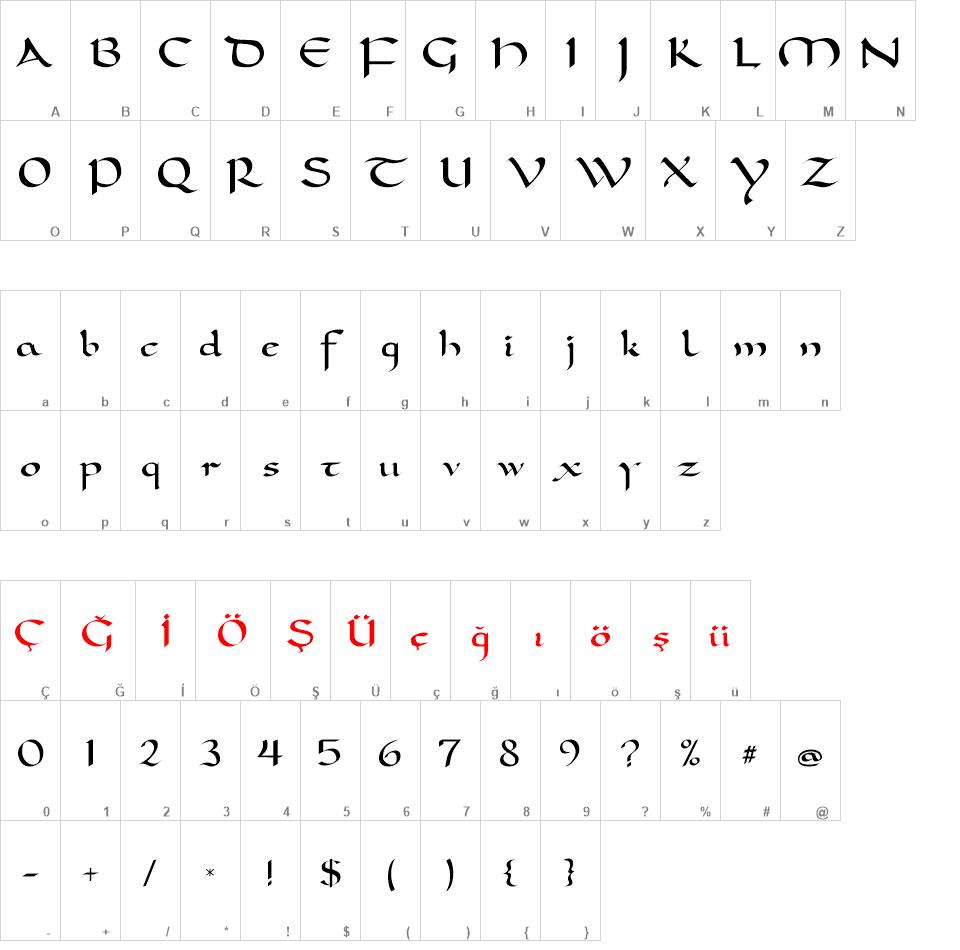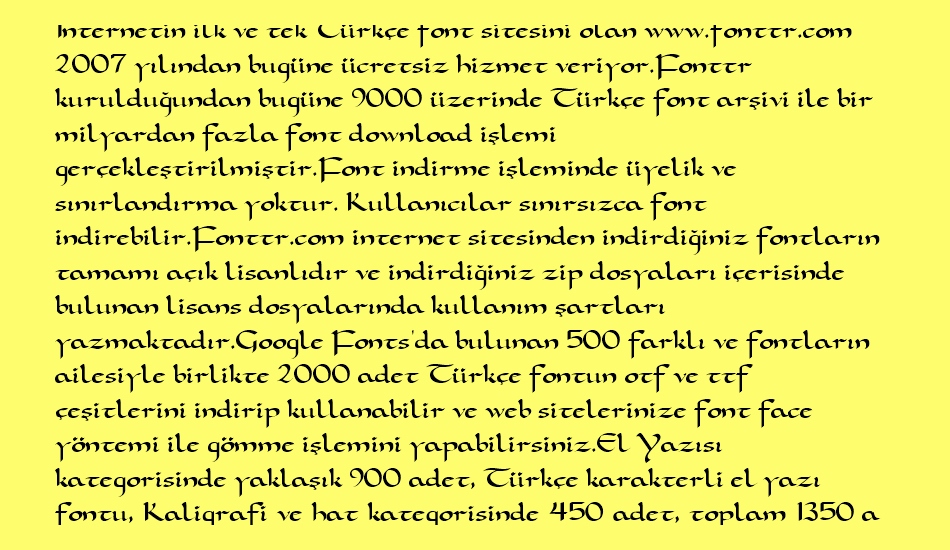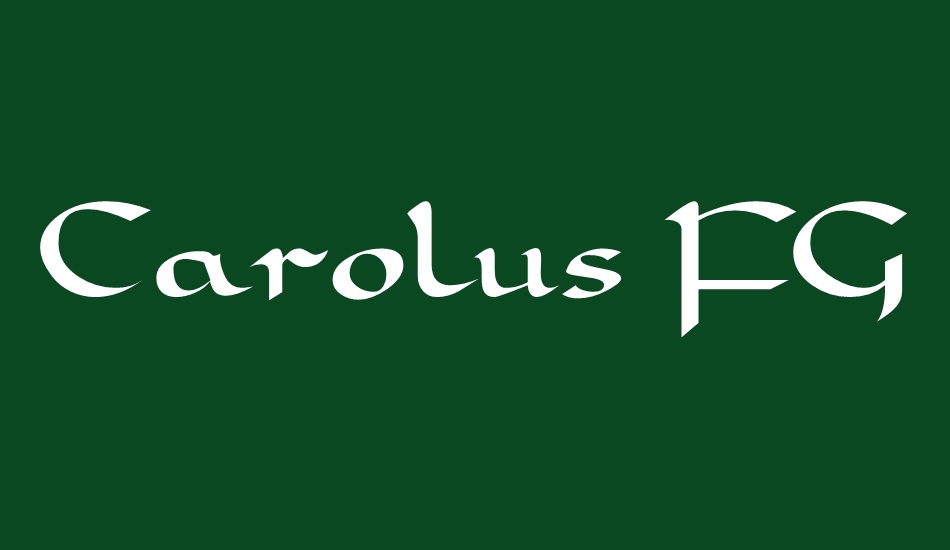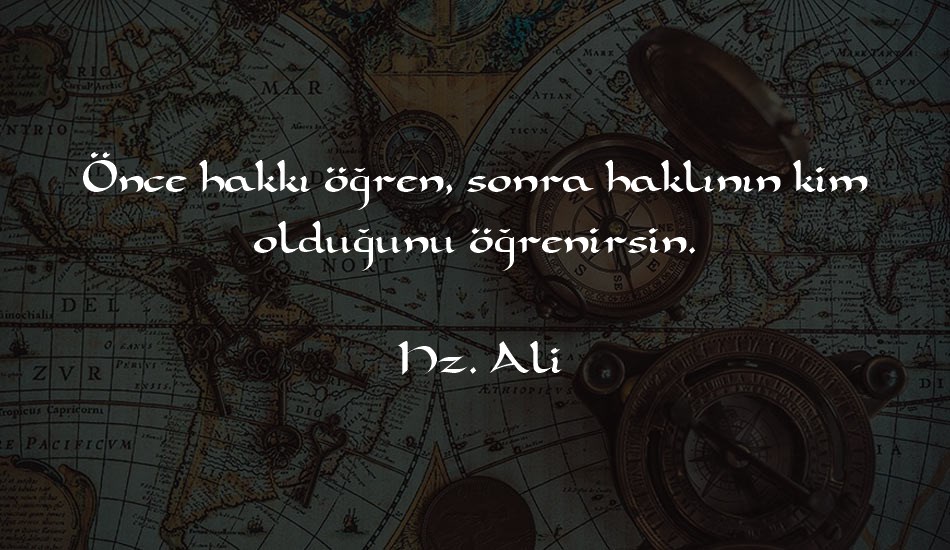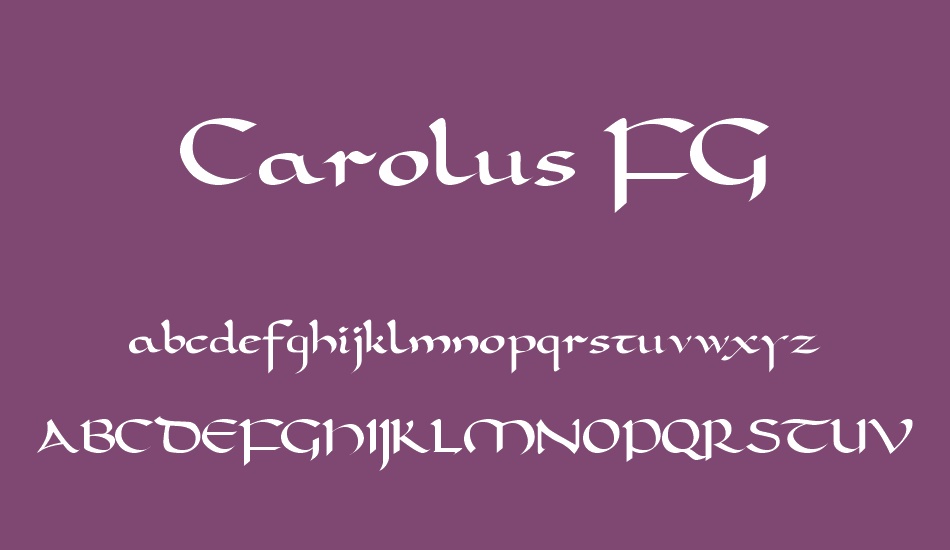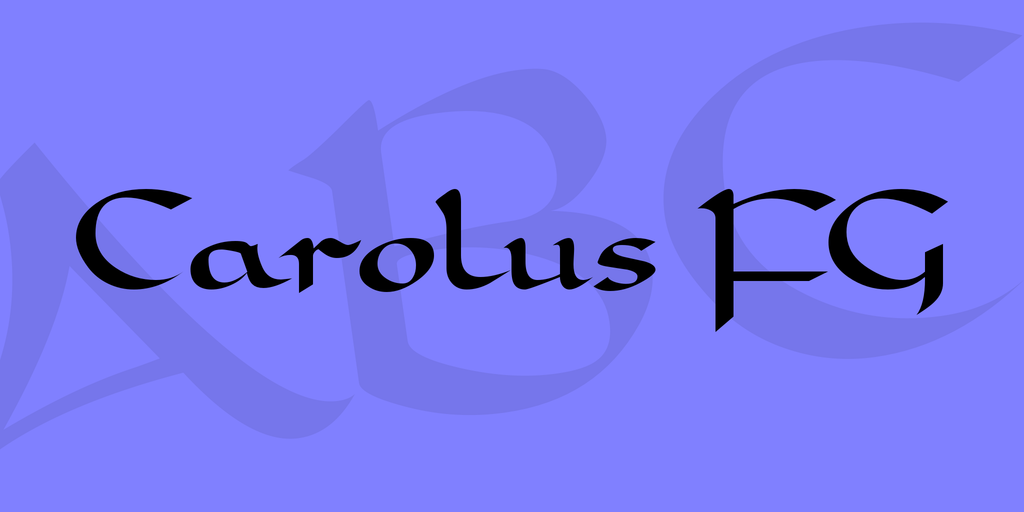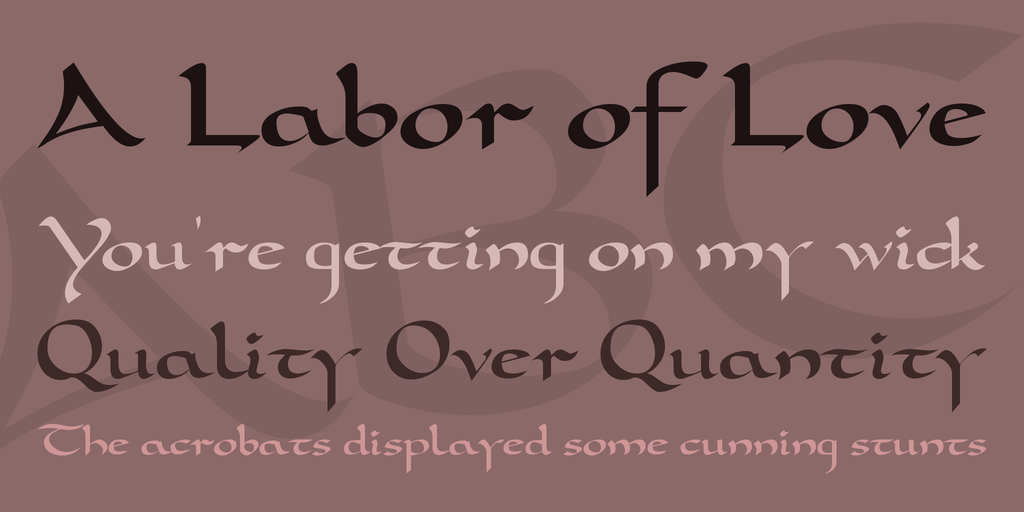
Carolus FG Font font
Carolus FG font
A nice calligraphic typeface, originally dated to 1991 and circulating as "Carolingia" and with the filename dorcla.ttf and the notice "A William Boyd Release. Free of Charge."
Now the fonts going with that name do not seem to be Boyd's original creations but adaptations of existing faces. Since Carolingia hat a few shortcomings (most obviously the too high x-height of the lowercase t) I started tweaking it for my own purposes and later published it on my web site fontgrube.de. Mistakes were corrected and more extended characters added.